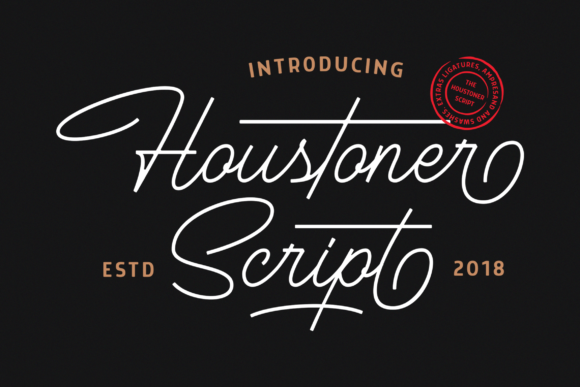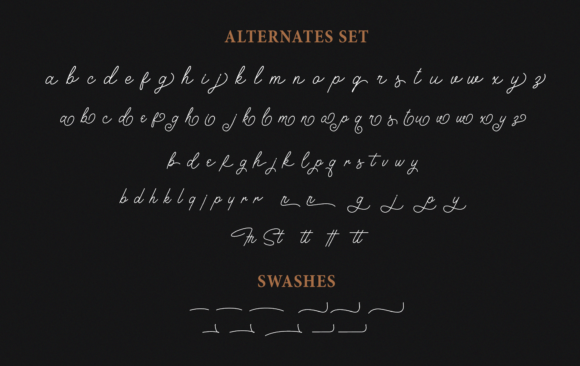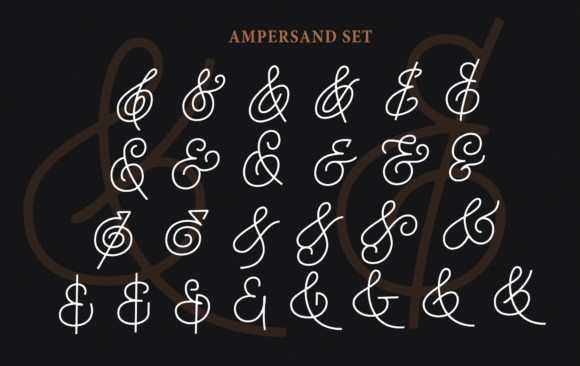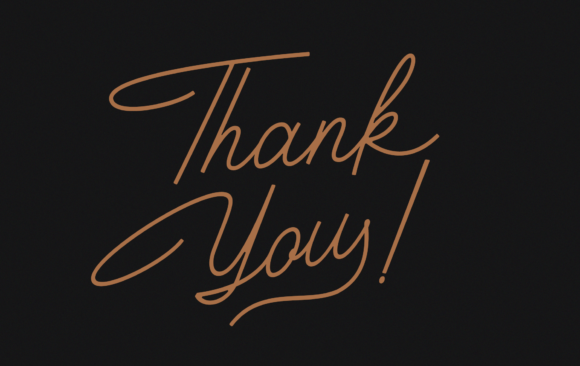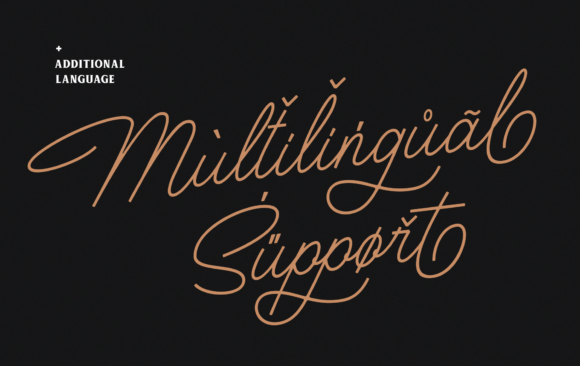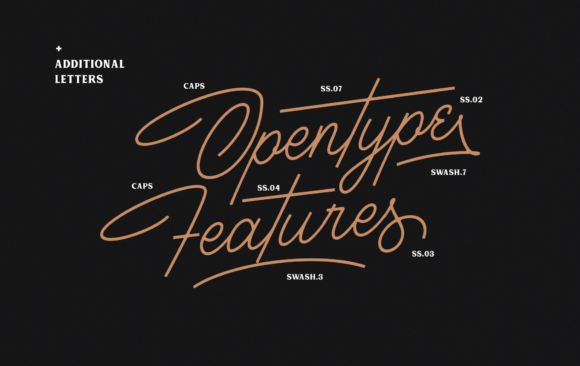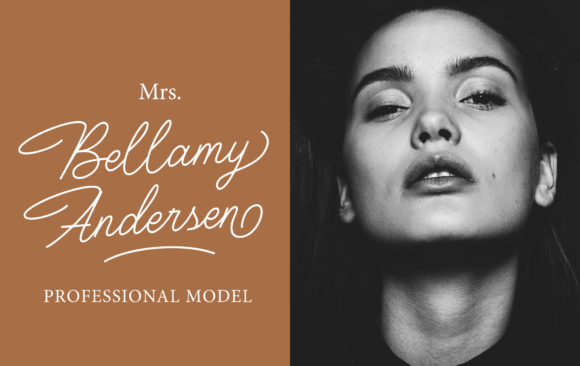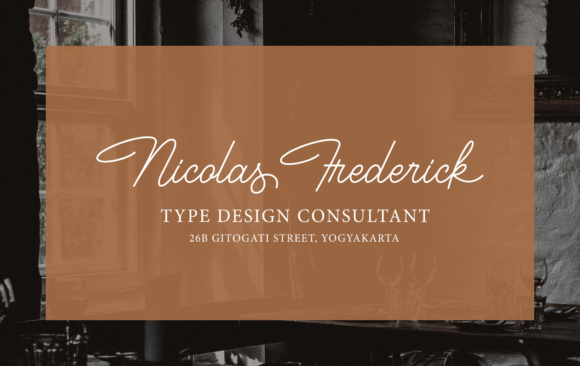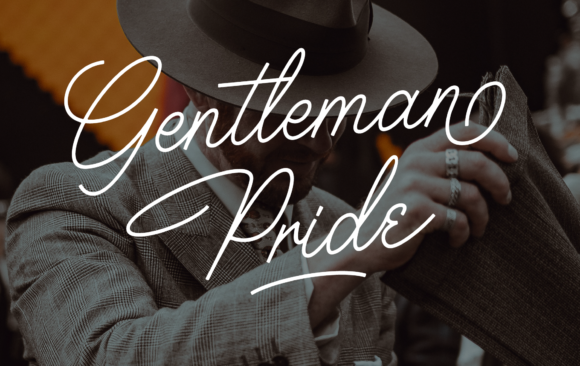
Houstoner Font
About Houstoner Font
Houstoner is inspired by classic typography and brings its own unique style to any design project. This fantastic script font is best suited for headlines of all sizes, as well as for blocks of text that have both maximum and minimum variations. Whether it’s for web, print, moving images or anything else – Houstoner will look spectacular.